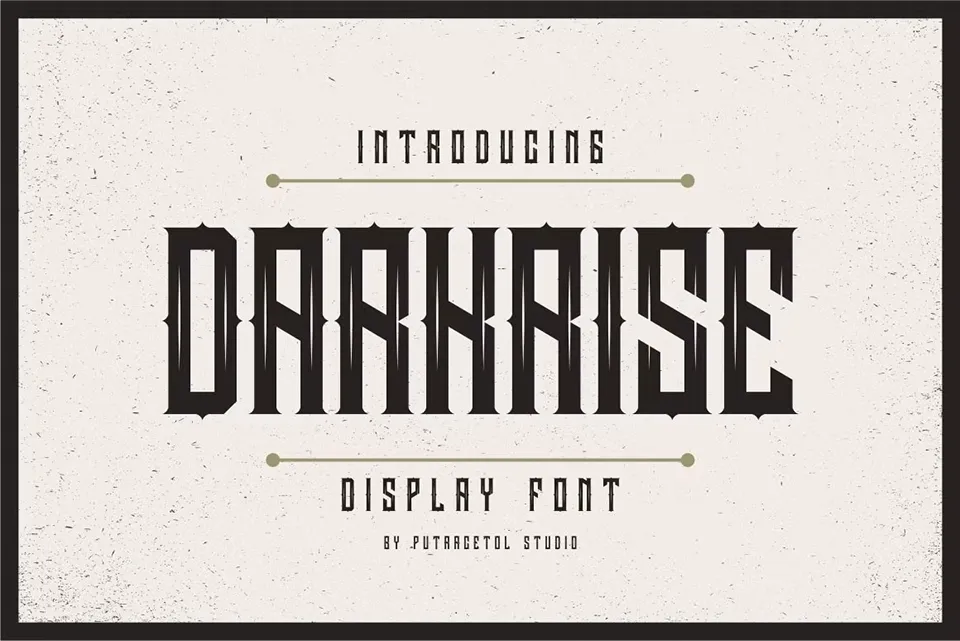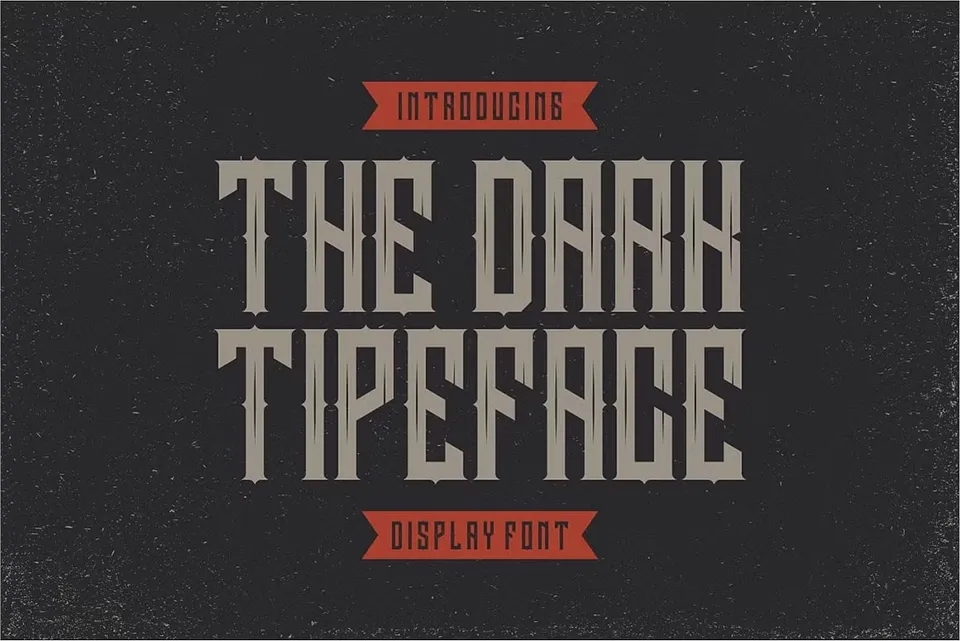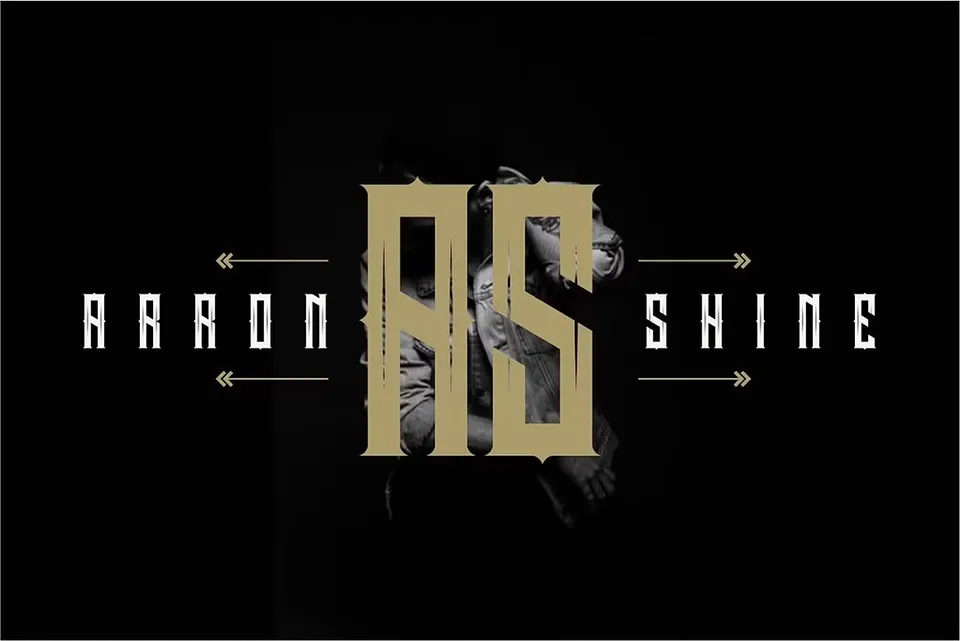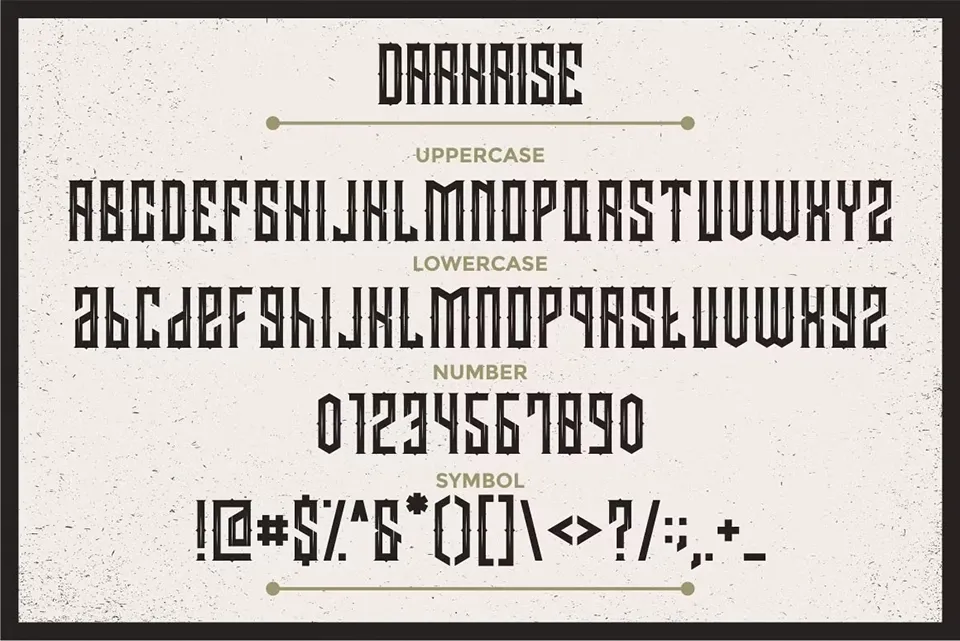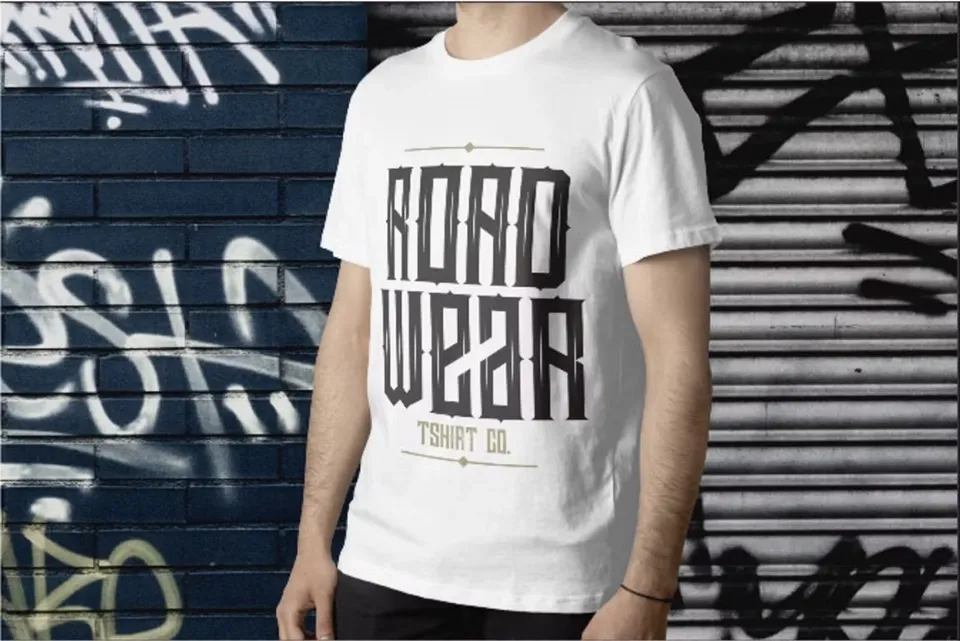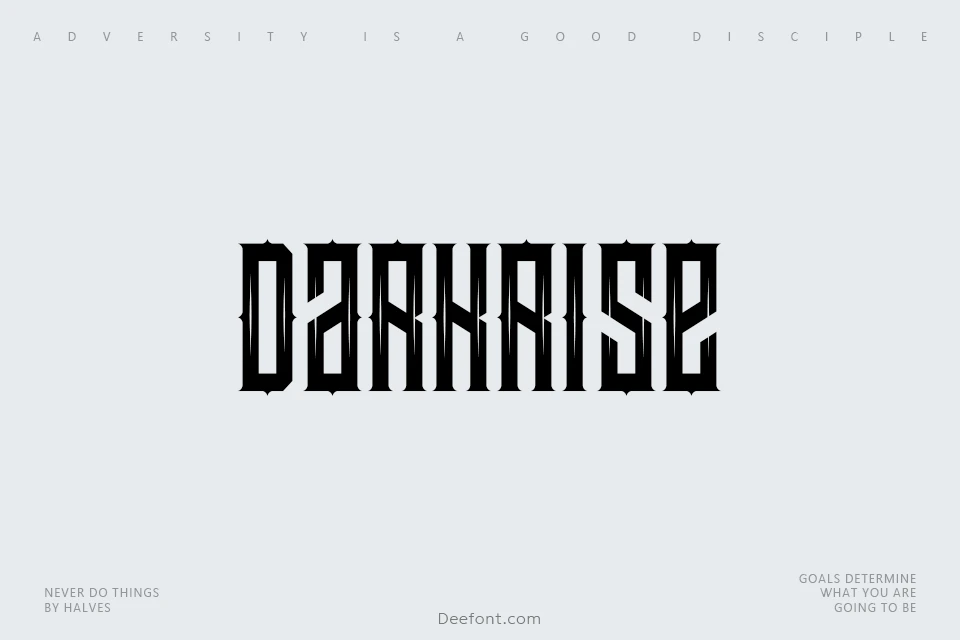
Darkrise Typeface
Darkrise Typeface is a dynamic display font inspired by classic typefaces and biker style, featuring sharp edges and a bold, metallic look. Its striking appearance makes it ideal for logos, titles, headlines, labels, t-shirts, posters, and more. Designed to stand out, this font brings a powerful and energetic vibe to any creative project.